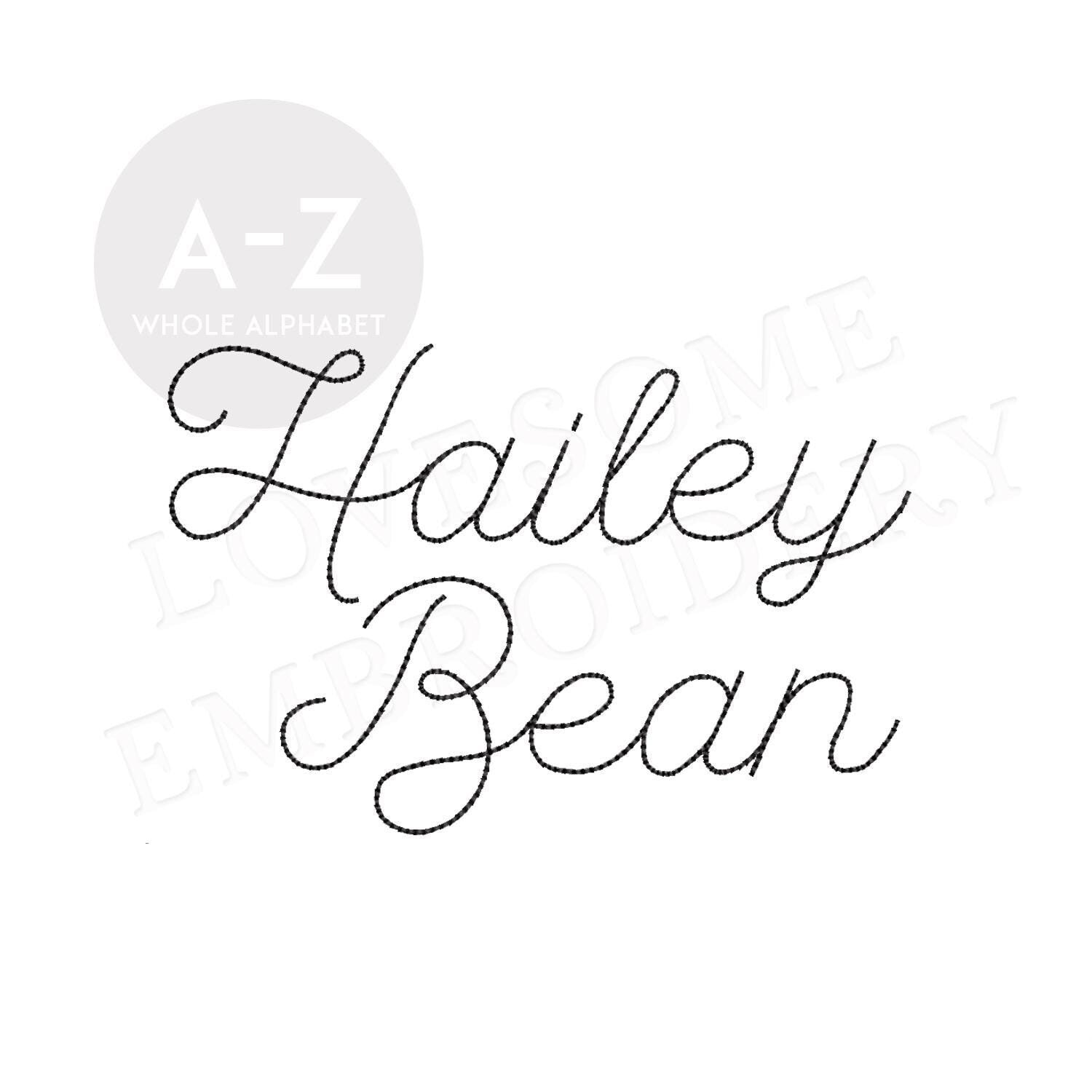
Hailey Script 0.5inch Bean Stitch Font A-Z, Cursive Run Stitch Font, Machine Embroidery Digital Download | Lovesome Design
This listing features a machine embroidery font set which includes run stitch (bean stitch) embroidery files of 26 uppercase, 26 lowercase letters and an ampersand in 0.5inch size. (For the whole set, pls see the listing images.)